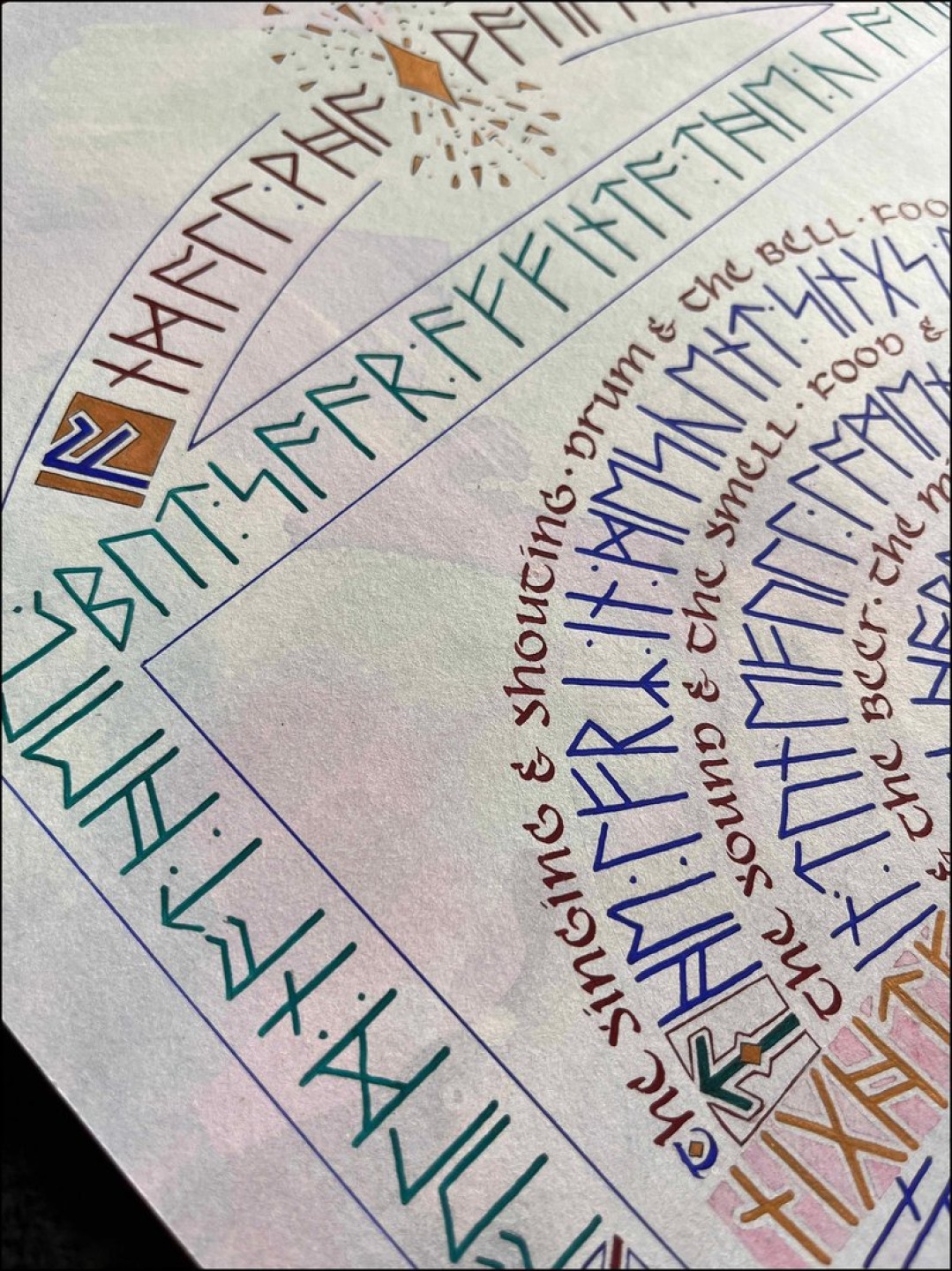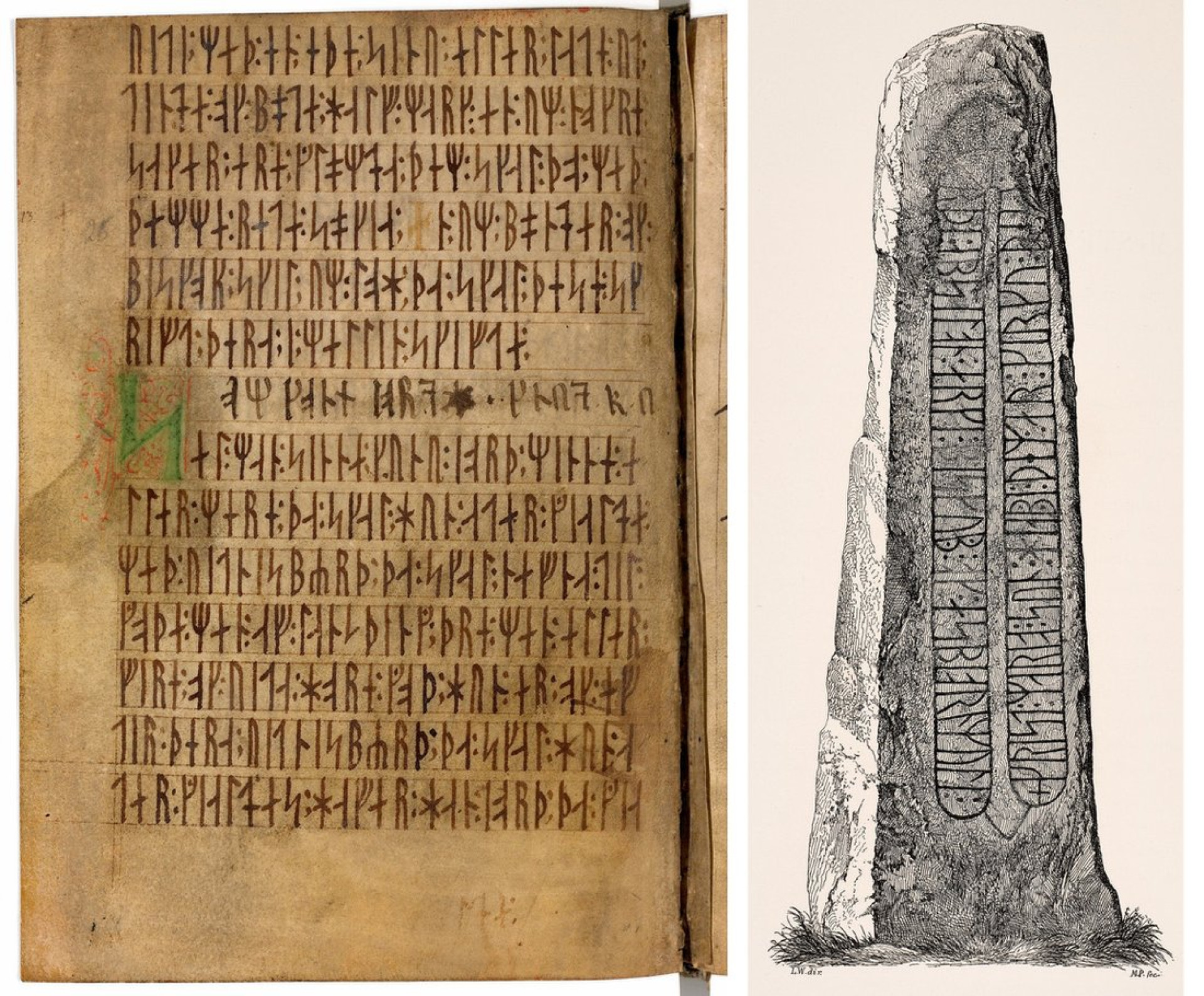
Runes Revisited
In this workshop you will learn something about the origins of Scandinavian runes and about the Anglo-Saxon Futhark alphabet which we will adapt to form a contemporary runic-style alphabet (in English). You can use this to complement your calligraphic pieces or on its own.
We will generally be working with monoline nibs, such as Brause 'Ornament', etc., although you may wish to experiment with other monoline tools or nibs. An exciting addition for the winter months!